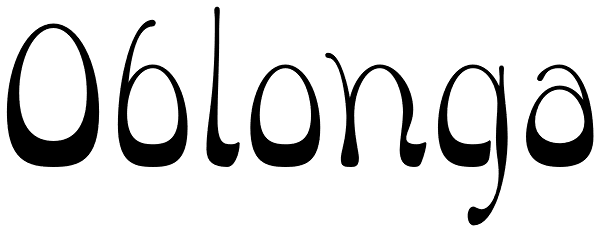
Oblonga
Oblonga shows thin, elegant lines. The continuity of the trace is only suggested through the curves of the letters, a soft effect of bonding that maintains the identity of each character. Oblonga is an Art-Déco font proposed in a modern key, a...
Oblonga Italic
Oblonga